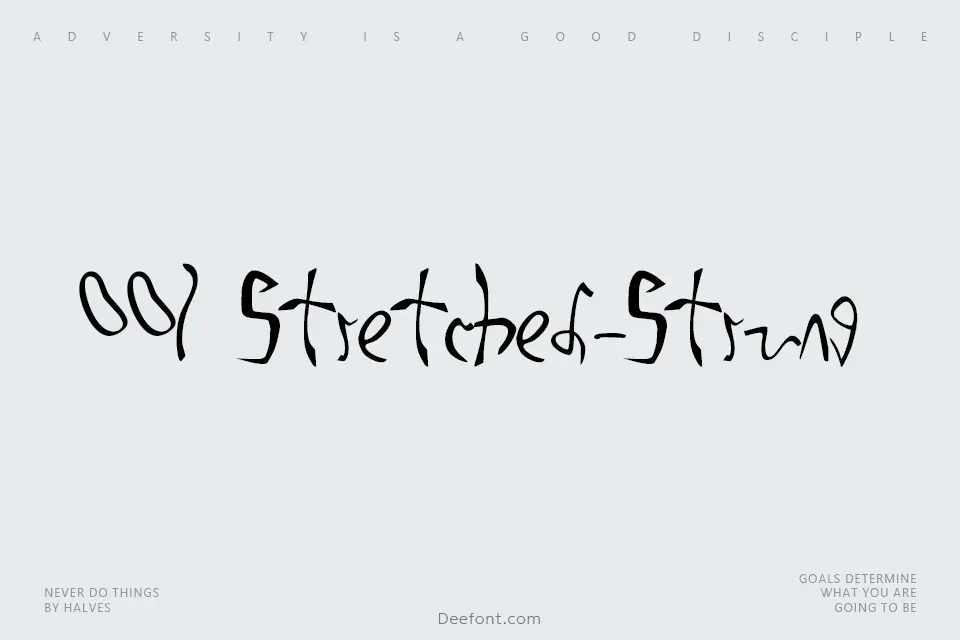
001 Stretched-Strung Font
001 Stretched-Strung is a distinctive script and graffiti-inspired display typeface characterized by highly stylized, elongated letterforms that appear stretched and strung out. This artistic font features fluid, calligraphic qualities with varying stroke thickness, creating a unique visual impact ideal for creative branding, posters, and artistic projects. The font’s unconventional design offers a modern, edgy aesthetic perfect for designs requiring an eye-catching and creative typeface with dynamic, urban appeal.